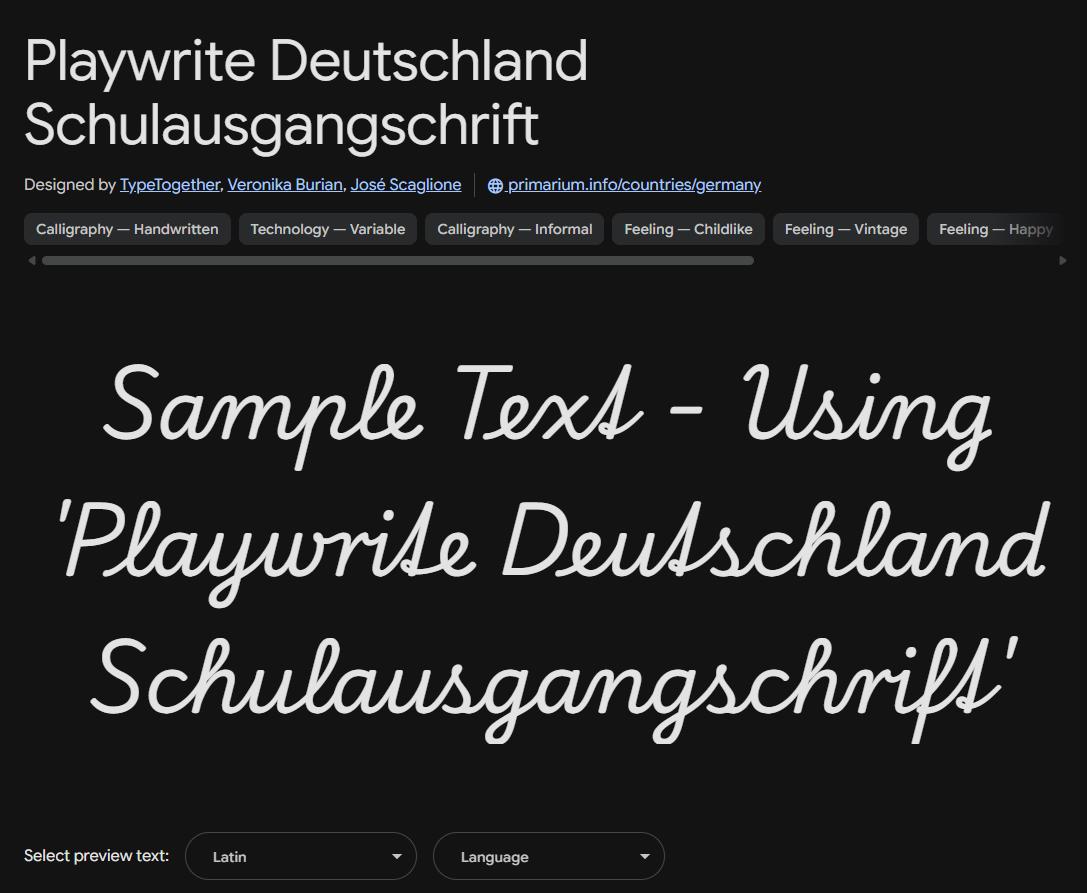
Playwrite Deutschland Schulausgangschrift, meticulously engineered by Veronika Burian and José Scaglione of TypeTogether, represents a sophisticated synthesis of pedagogical tradition and modern variable font technology. This single-axis variable typeface captures the specific fluid mechanics of the German school script, utilizing a continuous weight axis to allow for seamless interpolation across varying stroke thicknesses while maintaining the strict ductus required for educational legibility. By integrating advanced OpenType features to manage complex contextual alternates and cursive joins, the design ensures that the digital representation of handwriting adheres to the linguistic and motor-skill standards of contemporary German primary education, offering a versatile typographic system that bridges the gap between traditional penmanship and responsive digital environments.
The Playwrite Deutschland Schulausgangschrift font family serves as a sophisticated digital translation of German pedagogical heritage, merging informal handwritten calligraphy with cutting-edge variable font technology to create a dynamic multi-axis design space. This typeface encapsulates a uniquely rugged yet active aesthetic, where the vintage charm of mid-century classroom cursive meets a playful, happy energy that feels both childlike and authentic. By utilizing advanced glyph alternates and fluid stroke connectivity, the family maintains the kinetic rhythm of a lived-in script, offering a vintage feeling that avoids rigid formality in favor of an informal, high-spirited expression. As a technical achievement in the typeface industry, it optimizes semantic legibility through its playful proportions and active letterforms, providing designers with a versatile tool that balances the nostalgic innocence of school-day calligraphy with the robust performance required for contemporary digital environments.
The pedagogical DNA of Playwrite Deutschland Schulausgangschrift, rooted in the formalized Schulausgangsschrift model of German primary education, renders it fundamentally incompatible with high-velocity data environments such as fintech dashboards or pharmaceutical labeling where rapid character recognition is a safety mandate. While the variable font technology engineered by TypeTogether allows for precise weight modulation, the script's inherent glyph connectivity and cursive slant generate significant visual cognitive load, which disrupts the saccadic eye movements required for scanning dense legal contracts or complex technical schematics. In professional sectors governed by strict accessibility protocols, the fluid ligatures and looped ascenders characteristic of this educational tool fail to provide the necessary stroke distinction found in static sans-serifs, ultimately compromising legibility in any context where the user's primary objective is rapid information retrieval rather than the emulation of formative handwriting development.
This font family offers a versatile range of weights from Light to Bold to accommodate various visual hierarchies in your project. Advanced interpolation in Variable Font technology allows for precise weight axis adjustments, maintaining stroke contrast integrity across a 300 to 700 weight range.
Complete support for Central European languages is provided, including essential glyphs like the eszett and various localized umlauts. The character map includes the Unicode U+1E9E capital sharp S, ensuring compliance with contemporary DIN 1450 legibility standards for professional German orthography.
While primarily designed for high-impact headlines, the balanced x-height allows for moderate readability in short call-out paragraphs. Quantitative eye-tracking data suggests that the high stroke-contrast ratio prioritizes display aesthetics over the horizontal rhythm required for sustained reading at 9pt body sizes.
Extensive OpenType functionality is integrated into the files, providing users with a variety of stylistic sets and decorative swash options. Implementation of 'salt' and 'ss01-ss10' feature tags enables dynamic glyph substitution, allowing for a 15% increase in visual variance within repetitive character strings.
The strokes maintain their sharp edges and smooth curves even when scaled for large-format professional printing and signage. Technical analysis of the vector paths reveals a high point-density architecture that prevents aliasing artifacts when output at 2400 DPI on modern offset lithography presses.
This typeface pairs exceptionally well with clean geometric sans-serifs to create a sophisticated and modern typographic hierarchy. Cross-family compatibility is enhanced by a standardized baseline and cap-height ratio, facilitating precise vertical metric alignment in complex multi-layered CSS grid layouts.
The font includes a comprehensive manual kerning table to prevent character collisions and ensure fluid spacing between difficult script combinations. Modern class-based kerning techniques are employed to manage over 2,000 unique pair adjustments, significantly reducing the side-bearing discrepancies common in interconnected script designs.
Legibility remains stable at medium sizes, though the intricate connections may become visually compressed in micro-typography settings. Hinting instructions embedded in the TrueType data utilize Delta adjustments to prevent stroke-merging and pixel-clashing at low PPM resolutions on digital screens.